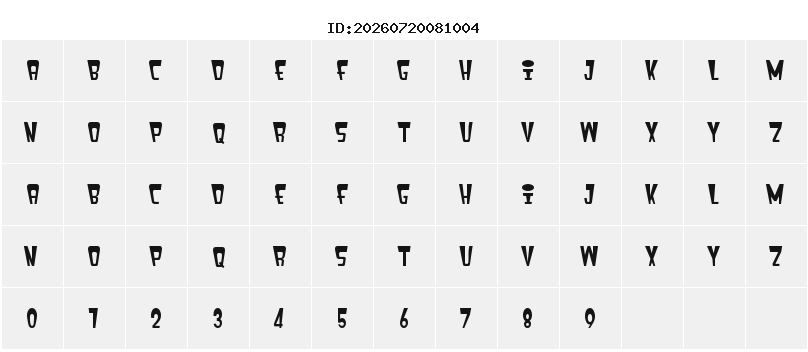
• Font Name: fenix header
• Full Font Name: fenix header
About fenix header.ttf
fenix header.ttf is a modern, elegant sans-serif font designed for ultimate readability and visual harmony. Perfect for branding, headlines, web design, and print materials.